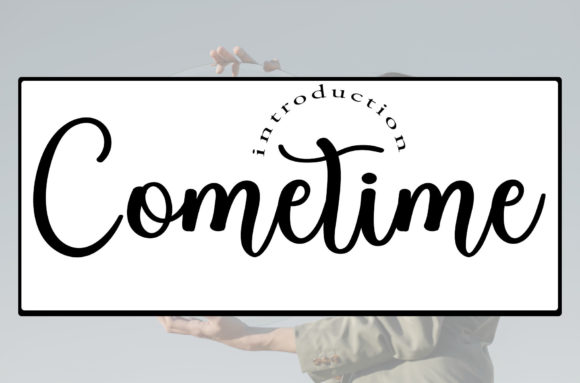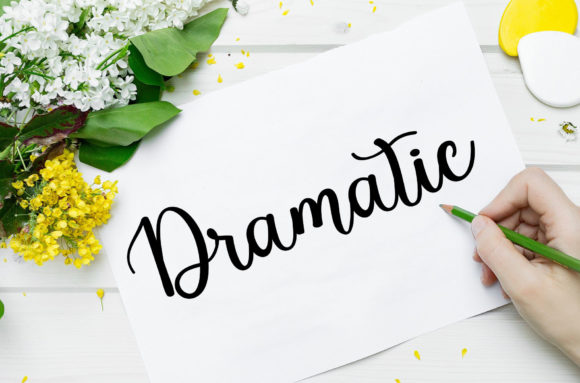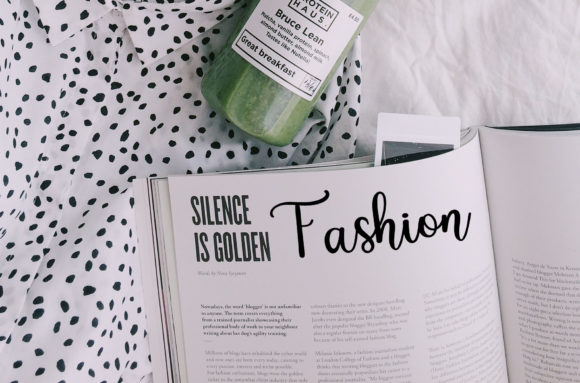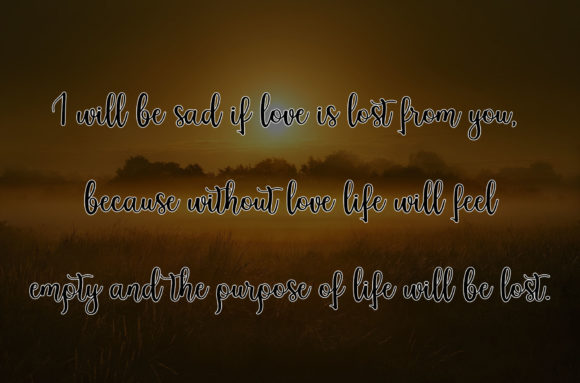
About Cometime Font
“Cometime,” a sweet, whimsical, fluid, and thin script font, emerges as a delightful addition to your design toolkit. With characters that dance along the baseline, this font brings a beautiful spark to any creative project you wish to undertake.
The sweetness of “Cometime” is evident in its whimsical and fluid script, which adds a playful and charming touch to your designs. Imagine this font gracing a variety of projects, from invitations to branding materials, posters, and more, infusing them with a sense of joy and creativity.
Picture “Cometime” enhancing invitations, where its thin and flowing script creates an atmosphere of elegance and whimsy. The characters dancing along the baseline contribute to the overall visual appeal, setting the perfect tone for special occasions.
In branding projects, “Cometime” becomes a charming choice, injecting a playful spark into your visual identity. The thin script adds a touch of sophistication, making your brand stand out with a whimsical flair.
The versatility of “Cometime” extends to various design contexts, allowing it to adapt seamlessly to your creative vision. Whether you’re working on posters, packaging, or any project that requires a beautiful and fluid script font, “Cometime” can be the perfect choice.
As you incorporate “Cometime” into your design projects, let its sweet, whimsical, and thin script inspire a sense of joy and creativity. May the characters dancing along the baseline add a beautiful spark to your creations, turning them into visually captivating expressions.